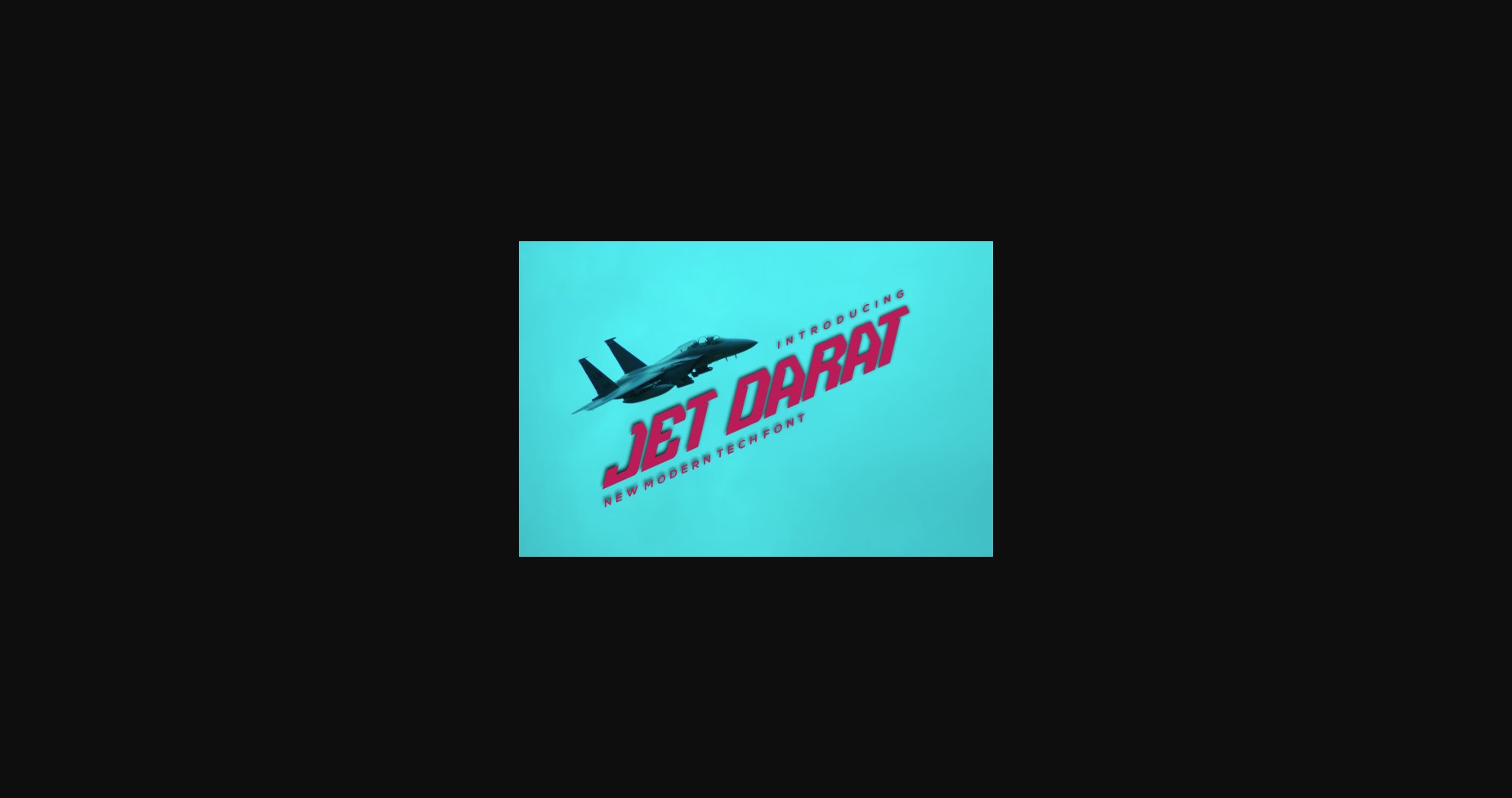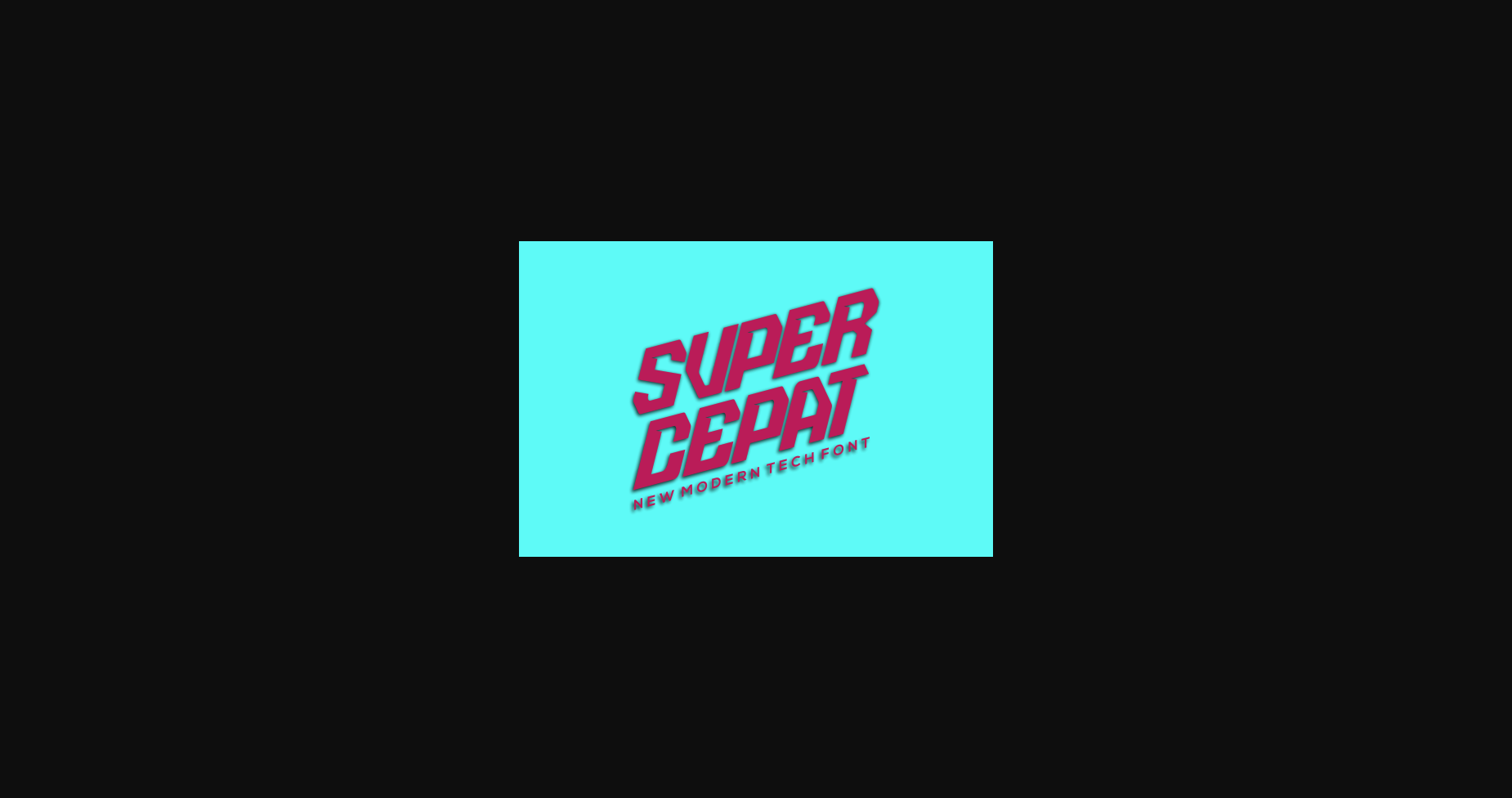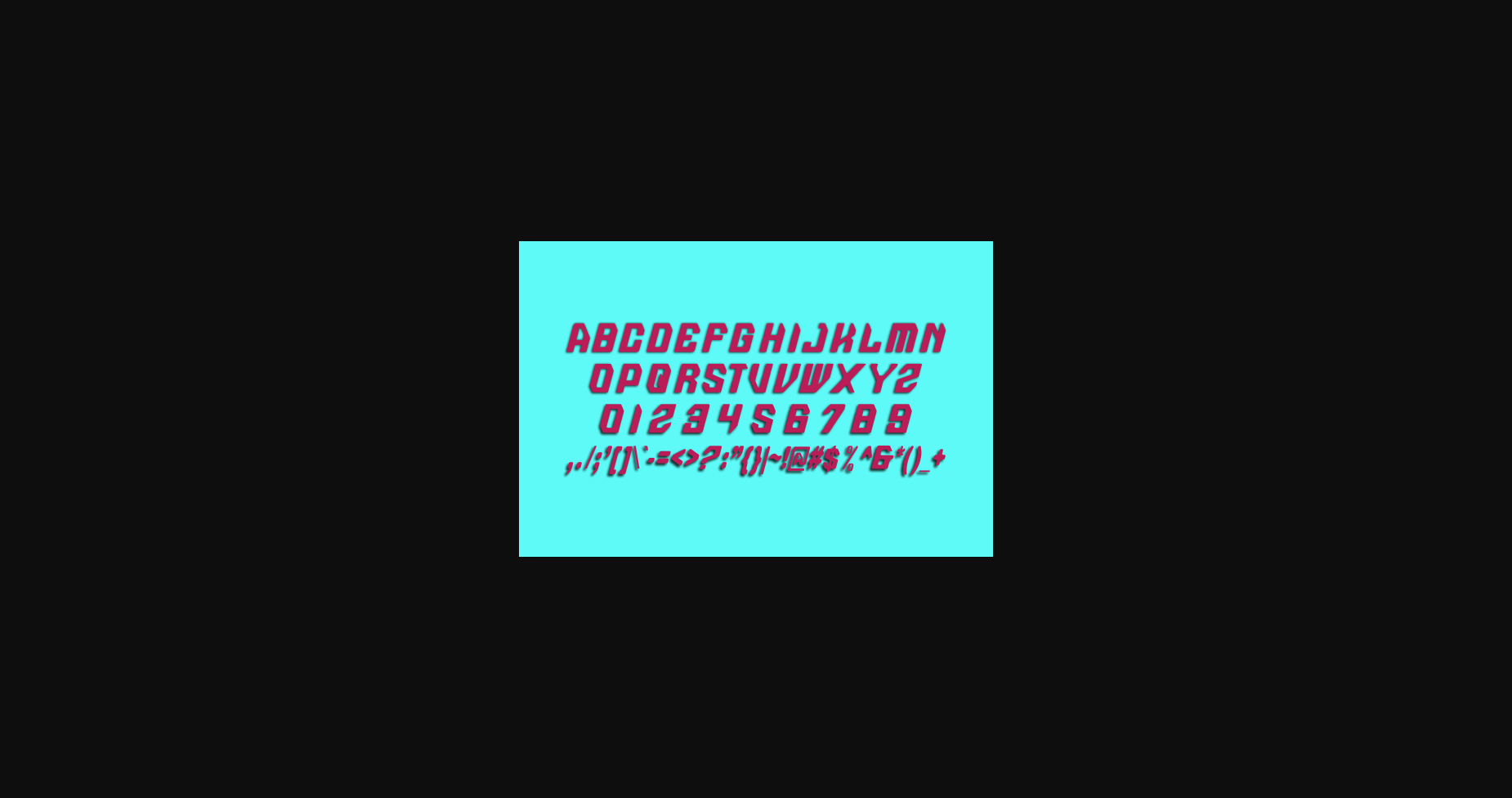
Jet Darat Font
About Jet Darat Font
Jet Darat is a modern font with a design that reflects the future and sophistication. This font was inspired by today’s advanced technology and will be more sophisticated in the future.